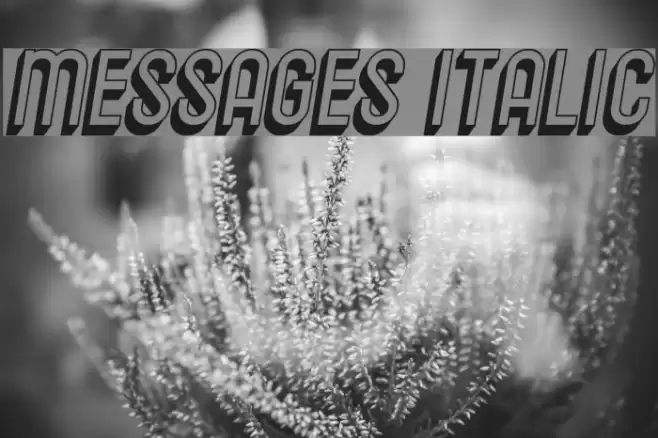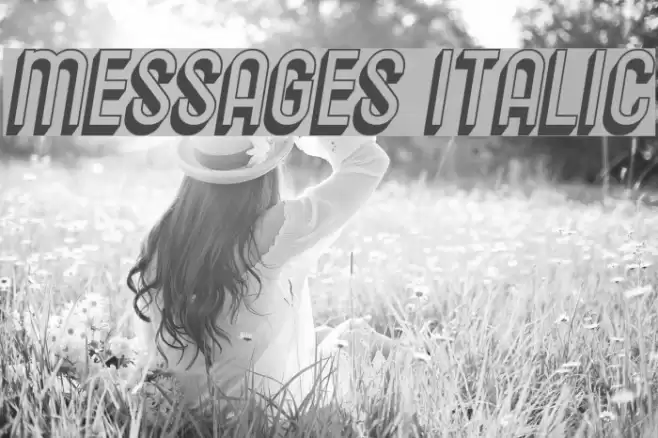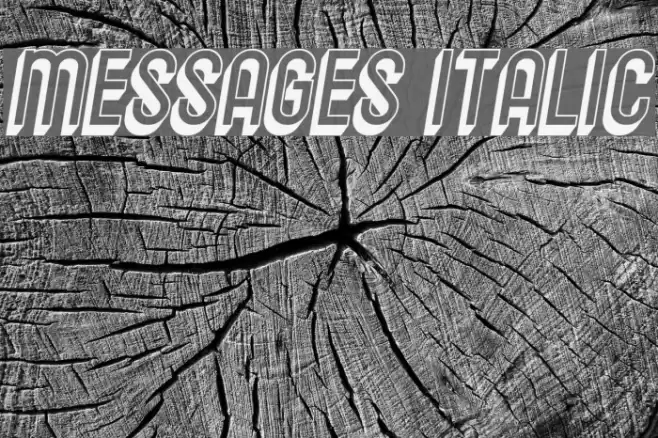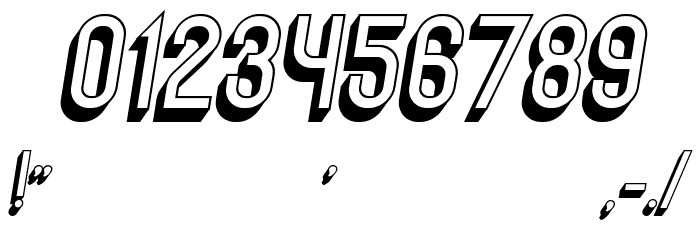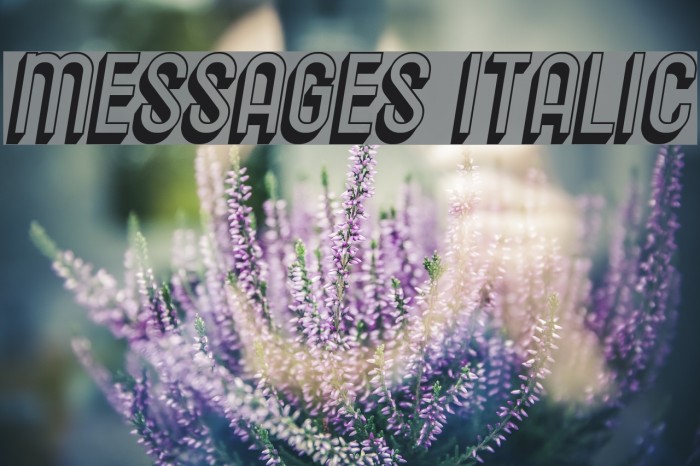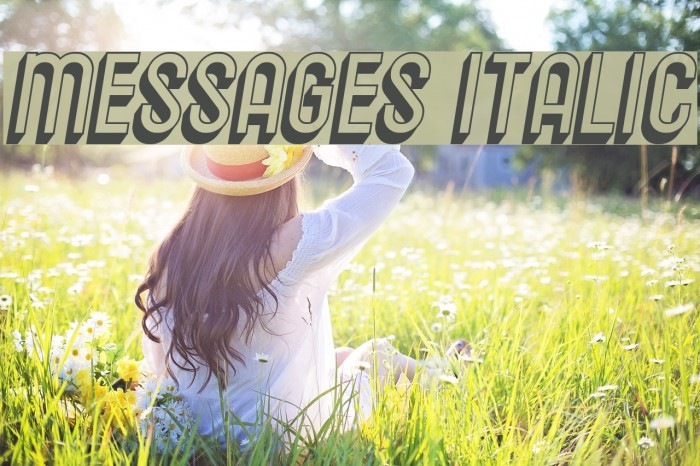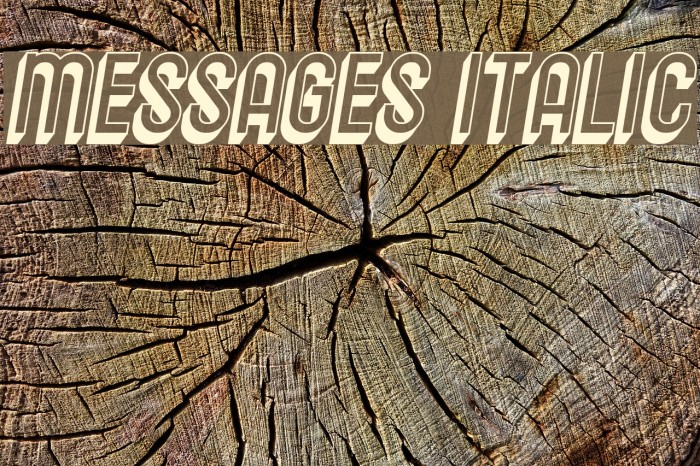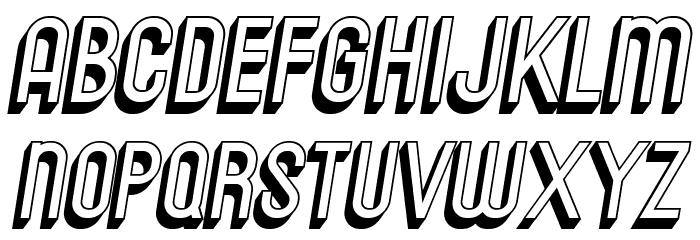
Messages Italic Font
Messages Italic Description
This font features a bold, italicized style with a distinctive 3D shadow effect, giving it a dynamic and eye-catching appearance. The uppercase letters are elongated and slightly condensed, enhancing their sleek and modern look. The numerals and special characters maintain the same bold and italicized characteristics, ensuring consistency across all glyphs. The font's design is both playful and assertive, making it suitable for projects that require a strong visual impact. Its unique shadowing adds depth, making it stand out in various design contexts.
Bold, italicized font with a 3D shadow effect for a dynamic look from Uncategorized fonts.
- Proposed Projects: Ideal for posters, headlines, logos, and branding materials that require a bold and modern aesthetic.